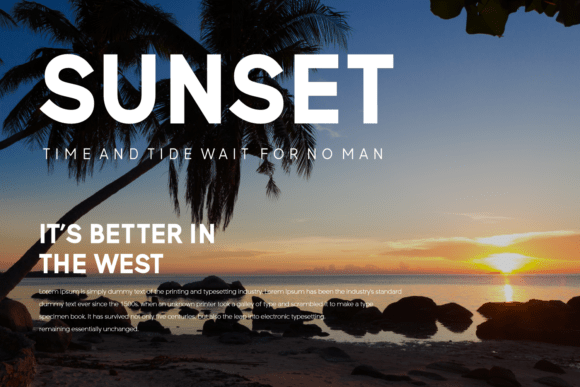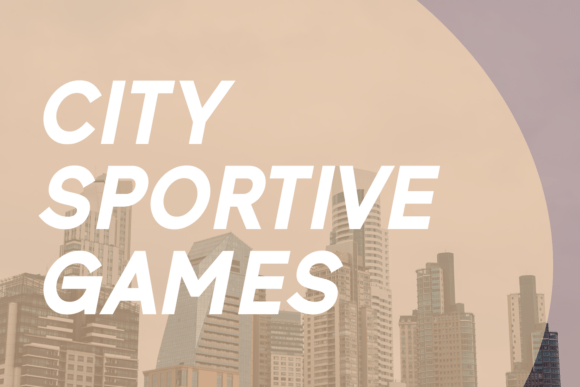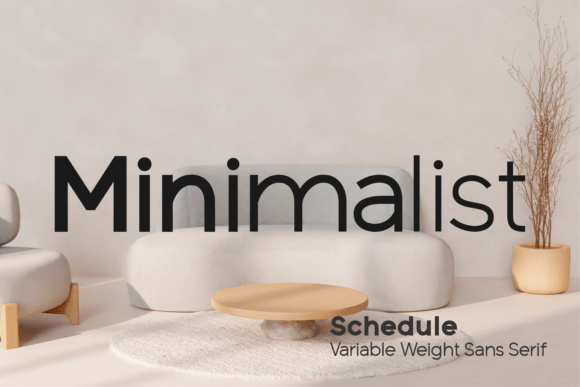
Introduction to Schedule Font
Introducing Schedule – the embodiment of streamlined simplicity and elegance in the realm of sans serif fonts.
This polished, versatile typeface effortlessly enhances various design canvas, from captivating posters and striking headlines to bold block letters and subtle subtitles Its understated sophistication makes Schedule an ideal choice for those looking to add a touch of professionalism to their logo designs and branding efforts.
Key Features of Schedule Font
Why Choose Schedule Font?
Schedule Font offers exceptional quality and versatility, making it a valuable addition to your design toolkit. Whether you’re creating for personal projects or commercial use, Schedule Font delivers professional results.